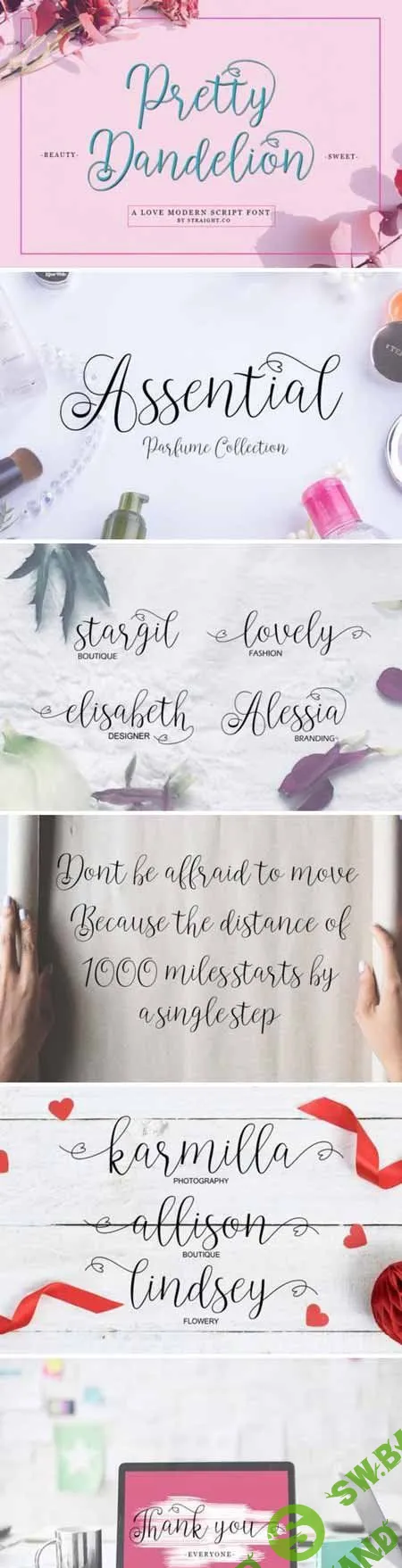
Название: Pretty Dandelion Font
Описание:
The Pretty Dandelion is a modern calligraphy font. It has a casual feel and includes elegant swashes which can be used to give your design a luxurious touch. It can be used for various purposes such as logos, product packaging, wedding invitations, branding, headlines, signage, labels, signatures, book covers, posters, quotes and more.
Описание:
The Pretty Dandelion is a modern calligraphy font. It has a casual feel and includes elegant swashes which can be used to give your design a luxurious touch. It can be used for various purposes such as logos, product packaging, wedding invitations, branding, headlines, signage, labels, signatures, book covers, posters, quotes and more.